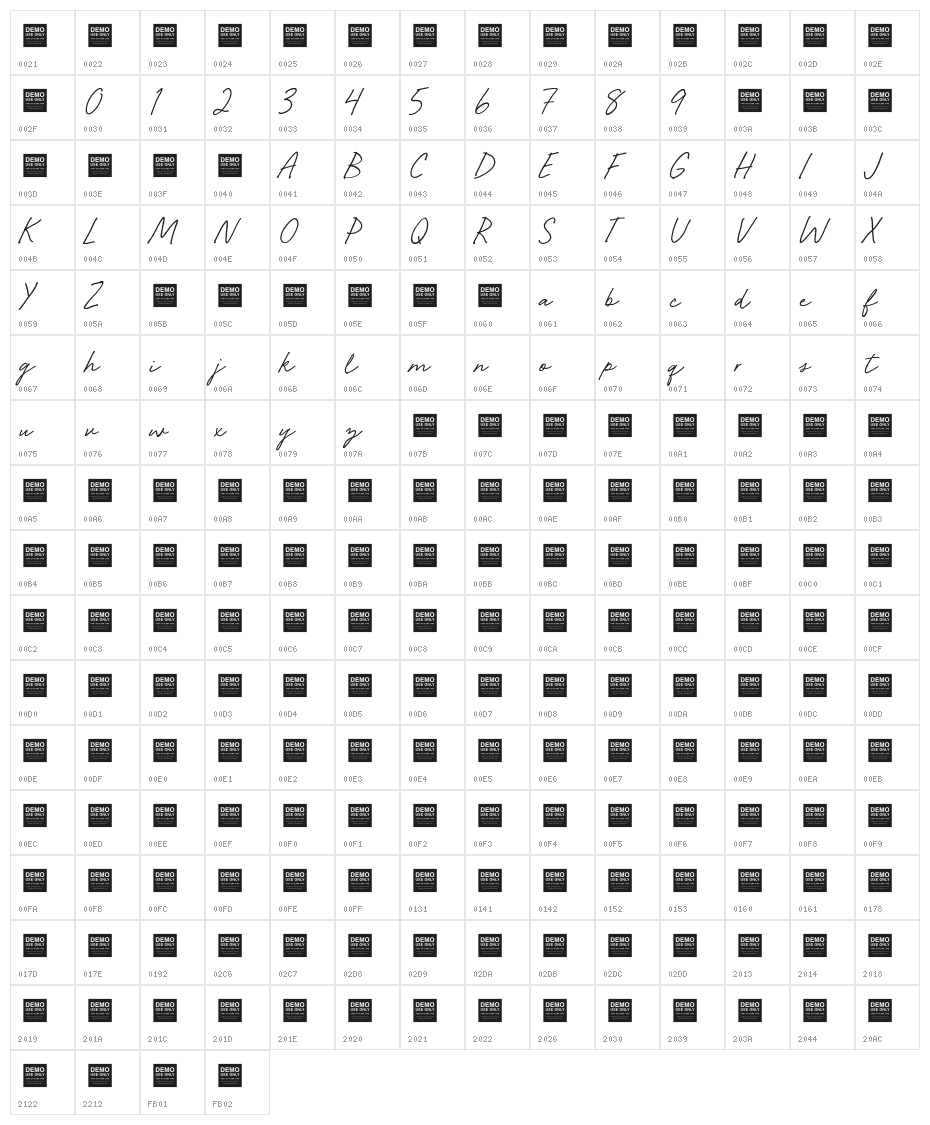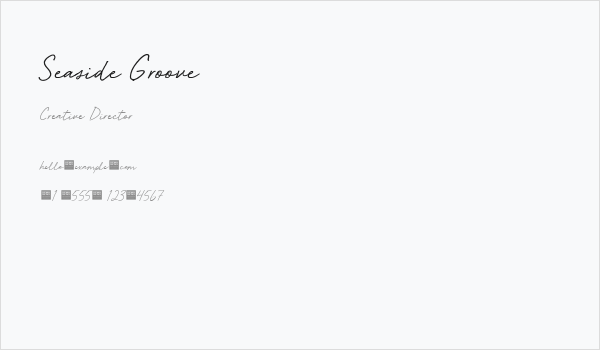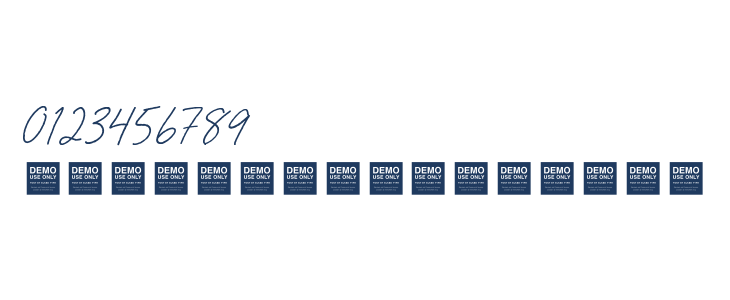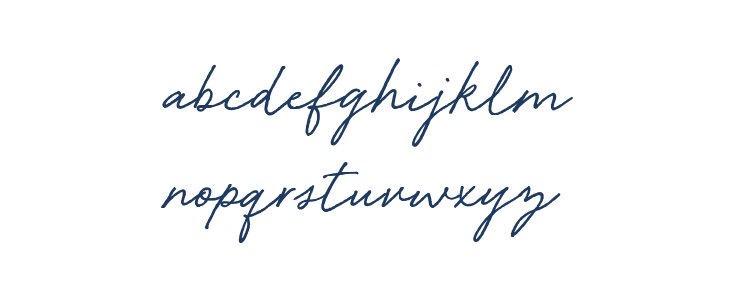
Seaside Groove Font
Seaside Groove Description
This font exudes a casual and relaxed vibe, reminiscent of handwritten notes or personal letters. The characters are fluid and connected, giving it a natural, flowing appearance. The uppercase letters maintain a consistent height, while the lowercase letters have a slight slant, enhancing the handwritten feel. The numerals are clear and easy to read, with a slight curve that complements the overall style. This font is perfect for projects that require a personal touch, such as invitations, greeting cards, or branding materials that aim to convey warmth and approachability.
| Overall Style | Casual, Relaxed |
| Use Case | Headlines, Logos, Personal projects |
| Proposed Projects | Ideal for invitations, greeting cards, personal branding, and any project needing a warm, approachable feel. |